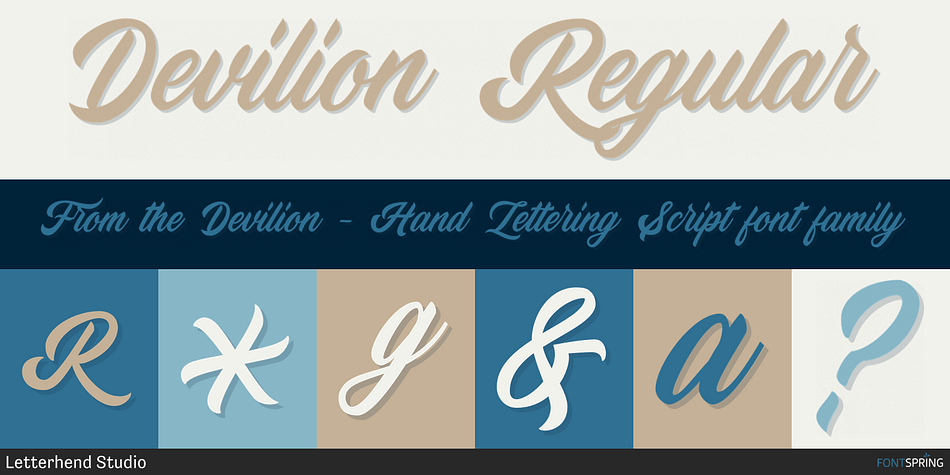
Devilion Regular
Designed by Hendry Juanda, Devilion - Hand Lettering Script is a brush script, retro and script font family. This typeface has two styles and was published by Letterhend Studio.
Amazing hand lettering look bold script typeface with attractive swashes and alternates! This font perfectly made to be applied especially in logo, and the other various formal forms such as invitations, labels, logos, magazines, books, greeting / wedding cards, packaging, fashion, make up, stationery, novels, labels or any type of advertising purpose.
uppercase & lowercase
numbers and punctuation
multilingual
ligatures
alternates
swashes
Devilion Regular
Devilion Rough